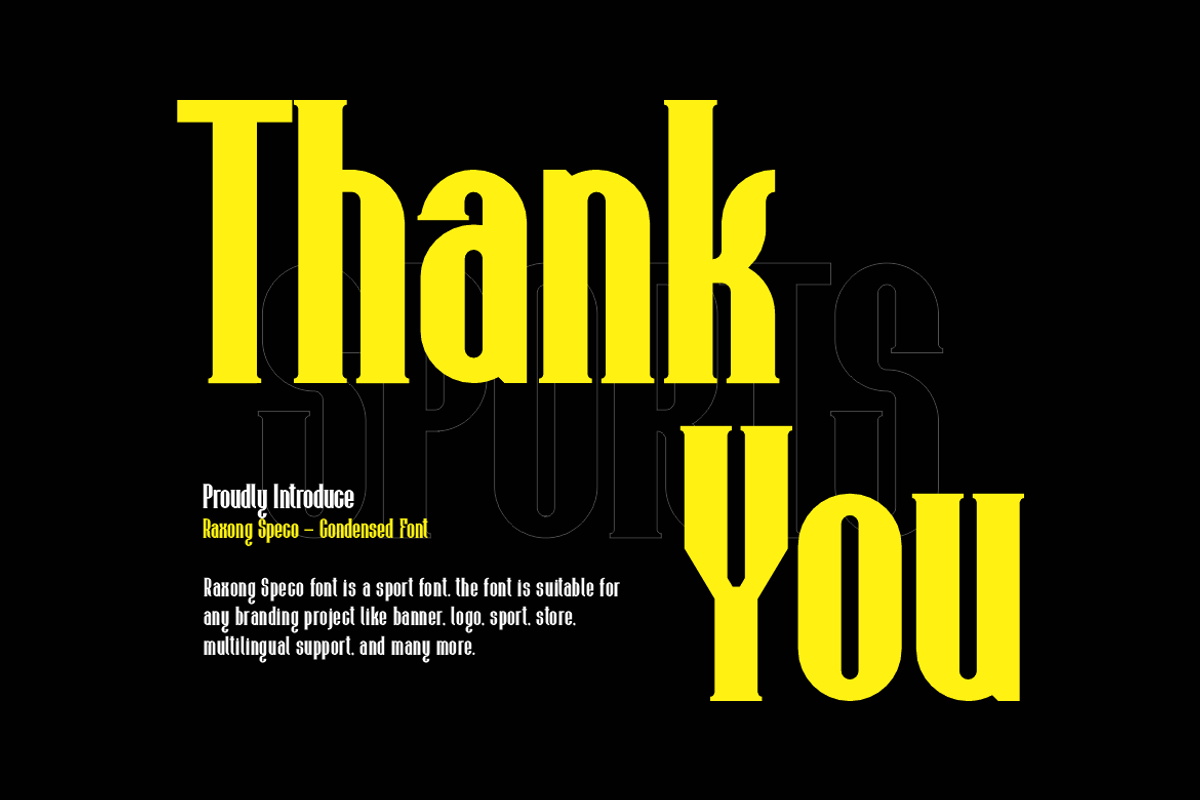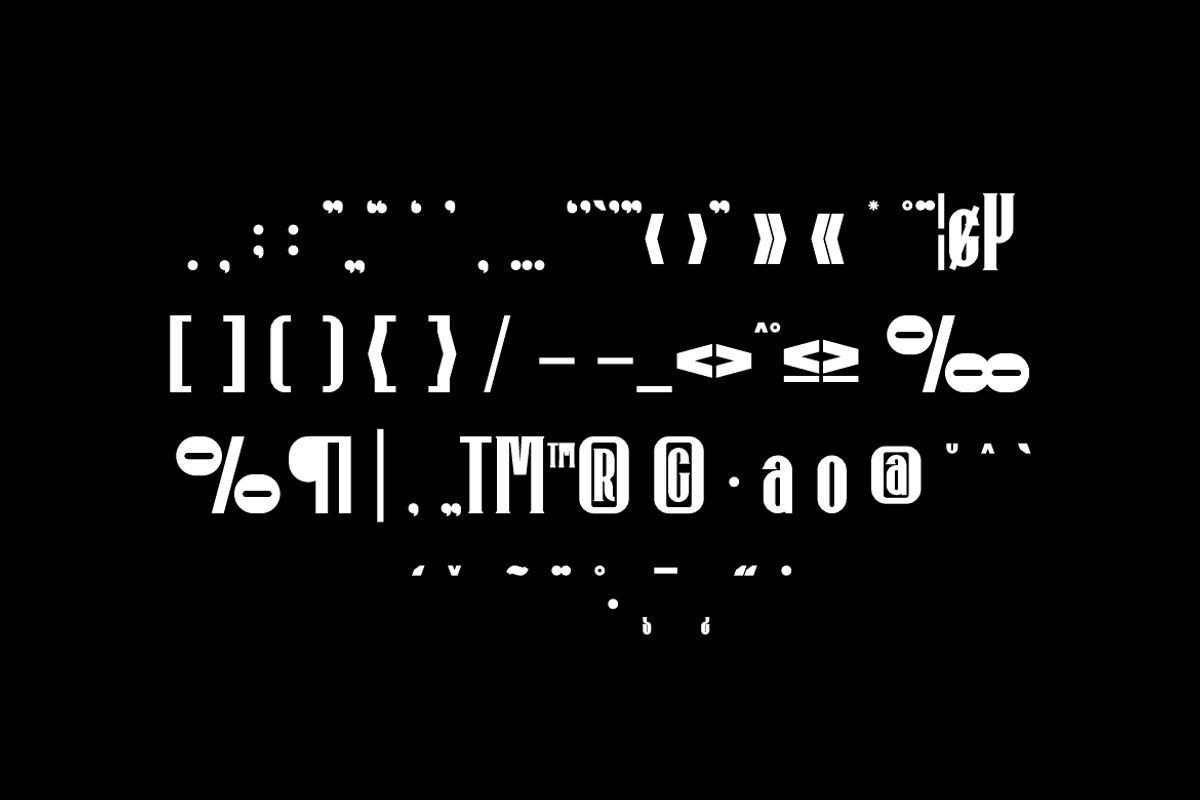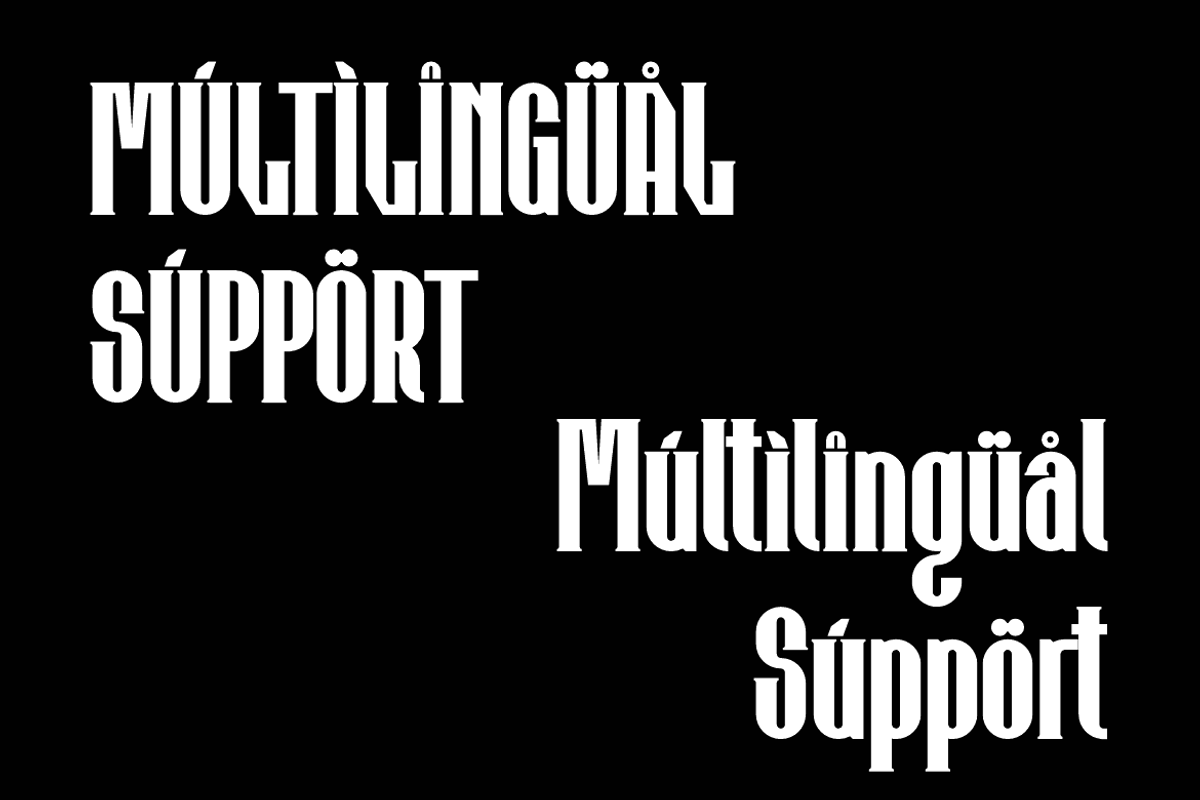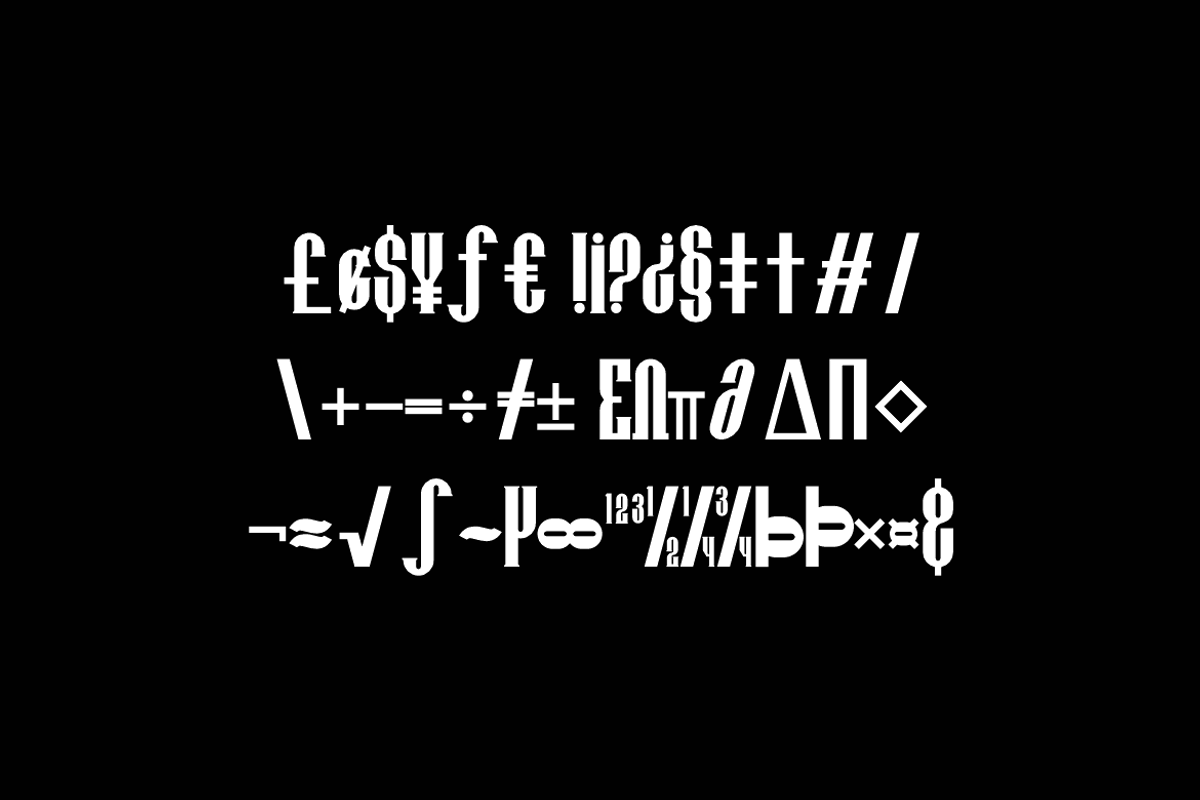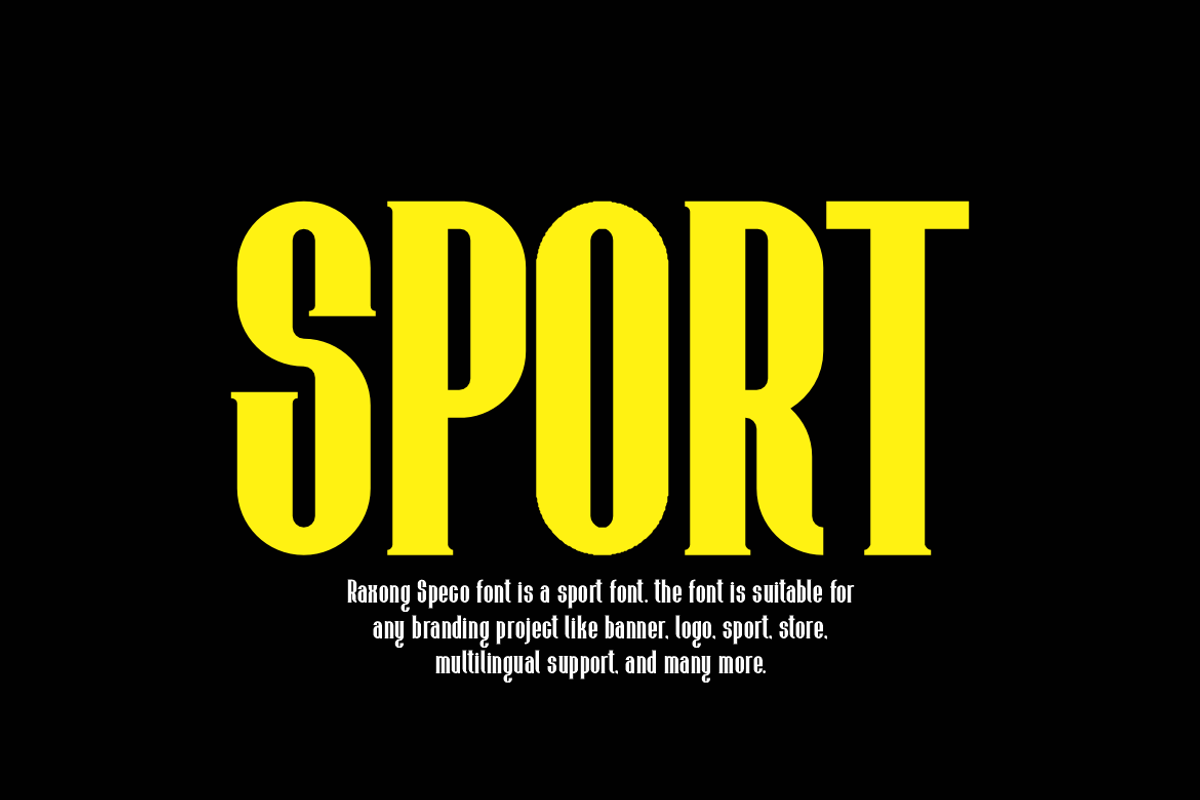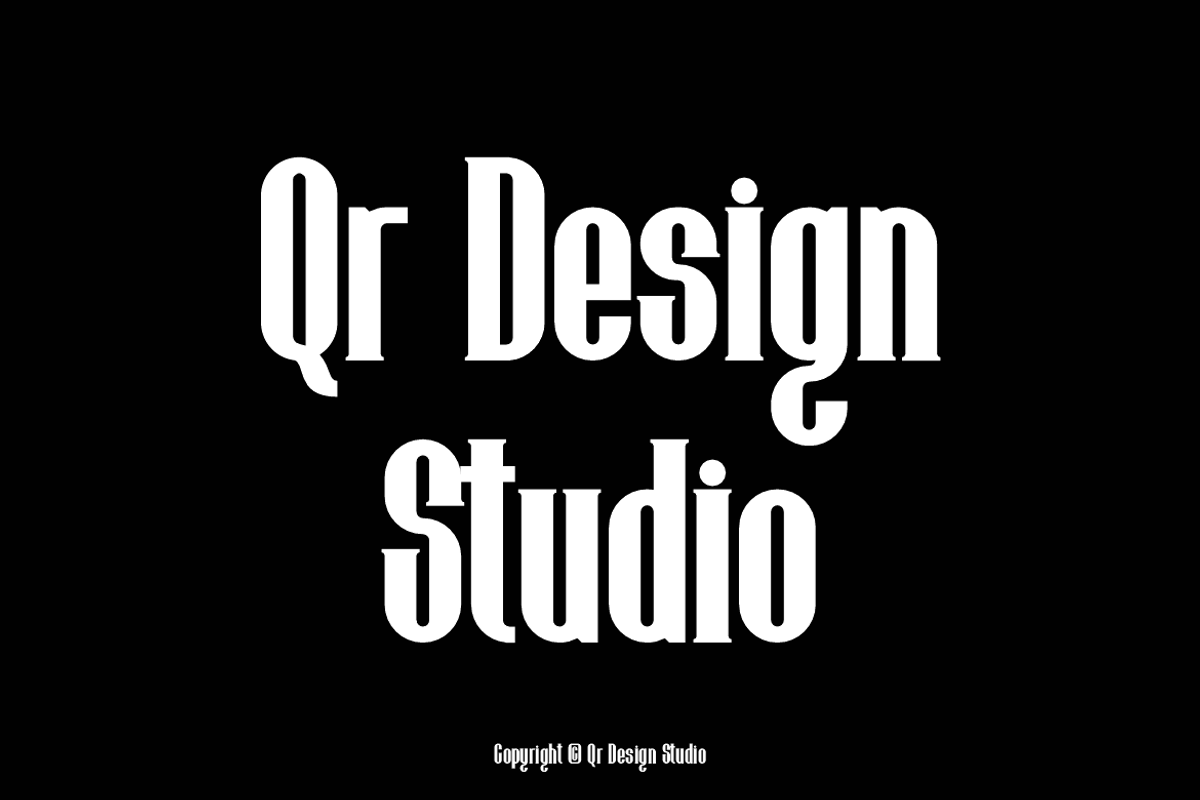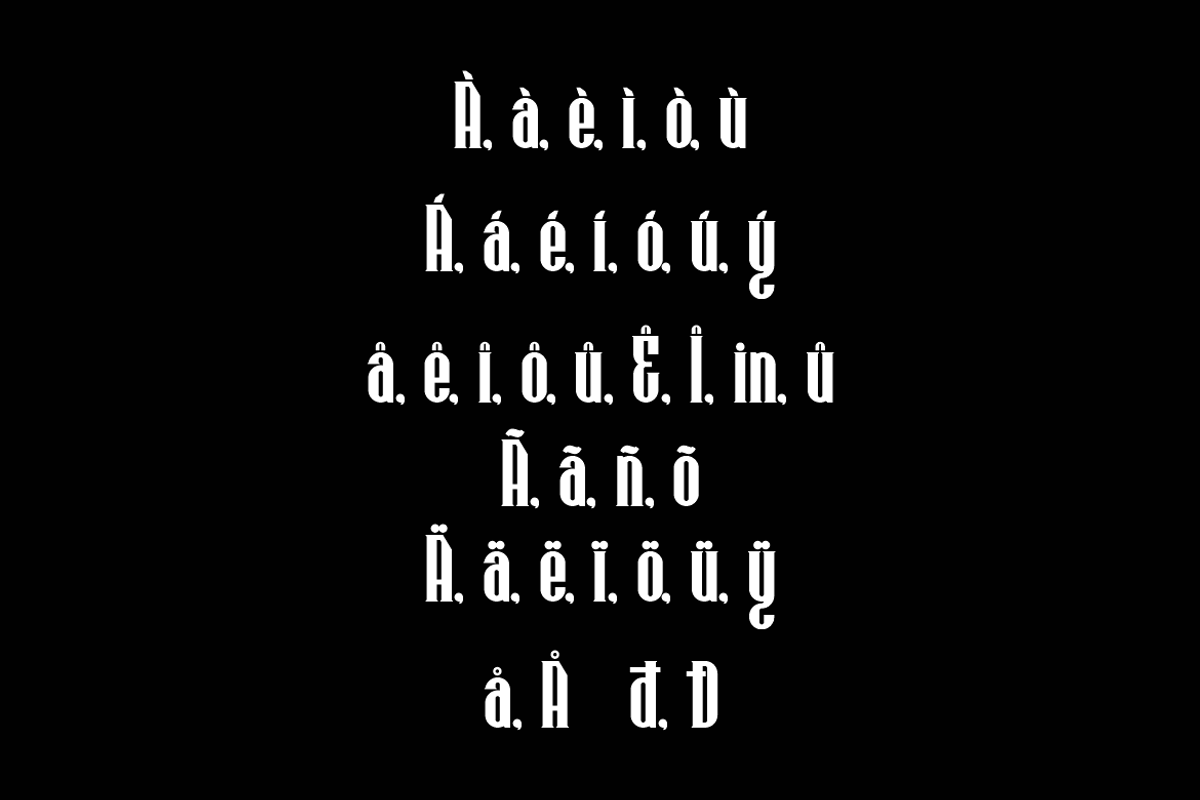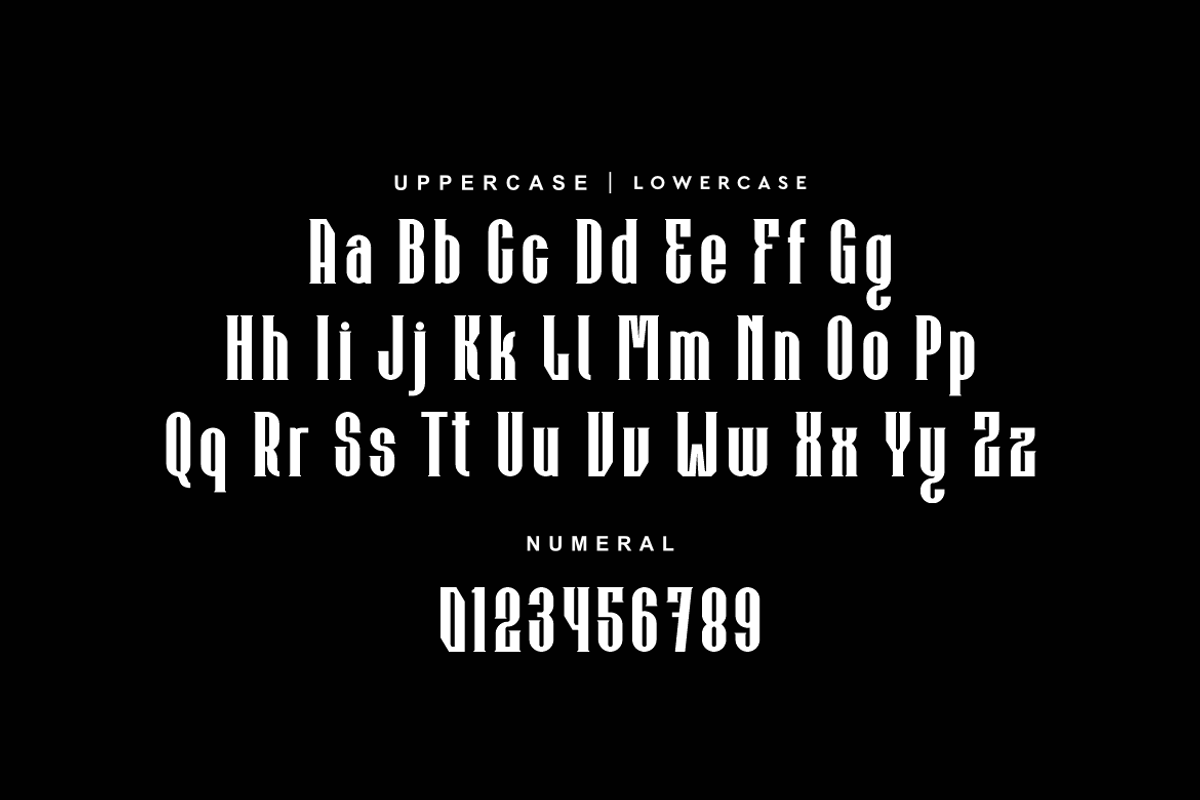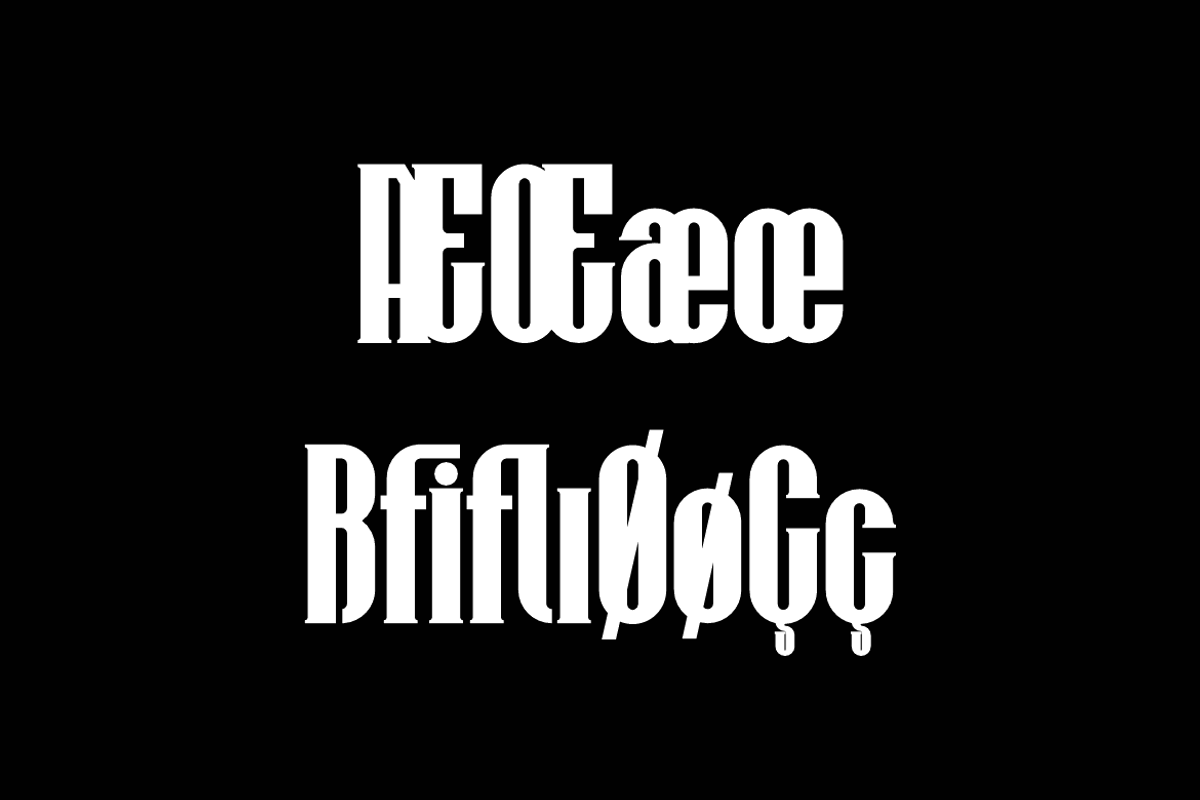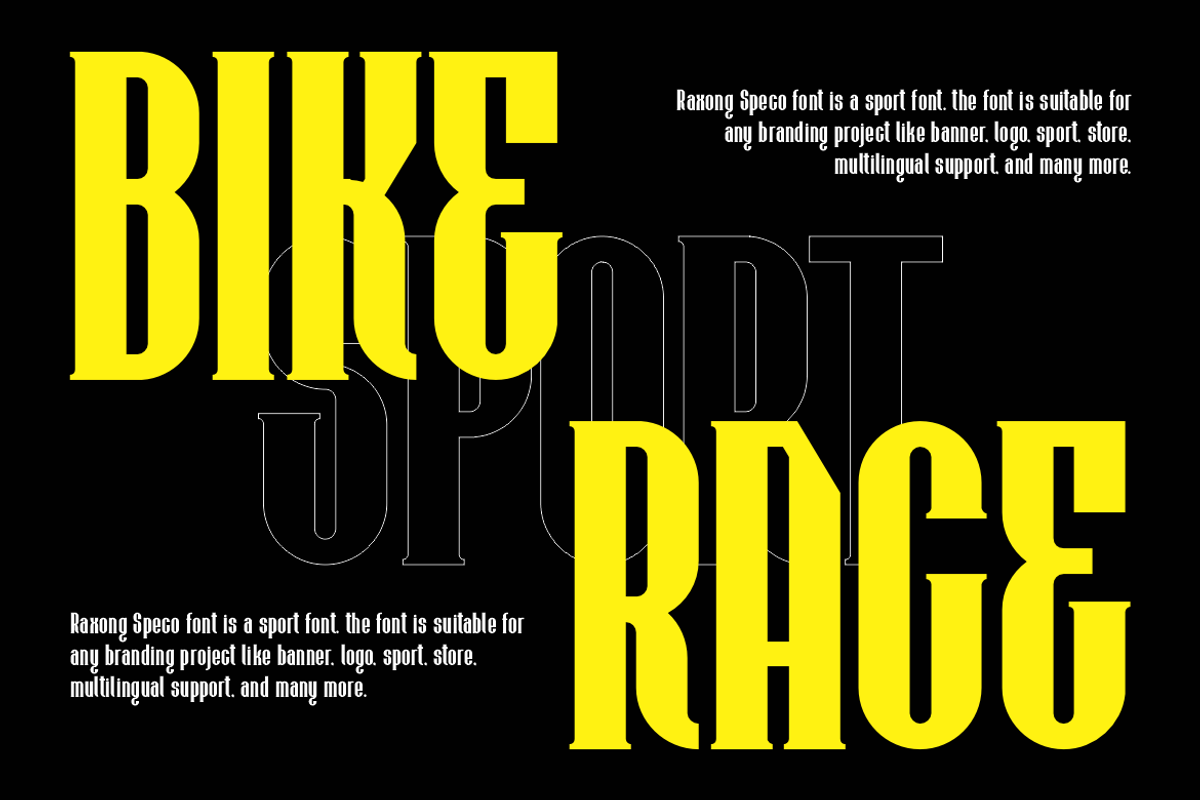
Raxong Speco - Bold Condensed Font
Raxong Speco Font is a bold and authentic display font. The font is suitable for any branding project like poster, logo, sport, and many more. Outstanding in a wide range of contexts.